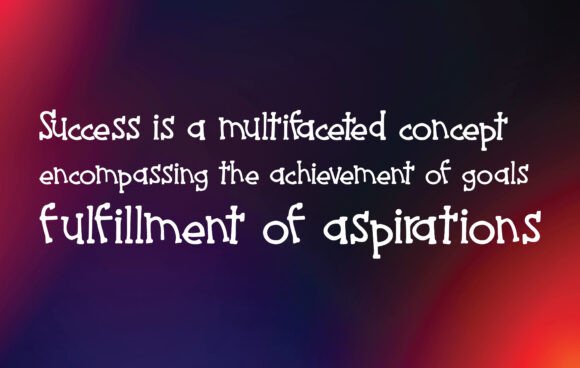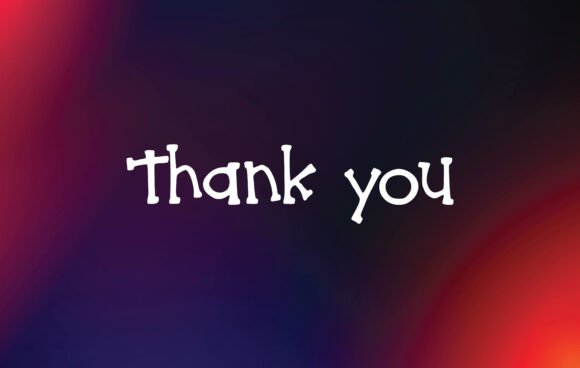
Introduction to Jackal Font
Jackal is a lovely and beautiful handwritten font.
Key Features of Jackal Font
Why Choose Jackal Font?
Jackal Font offers exceptional quality and versatility, making it a valuable addition to your design toolkit. Whether you’re creating for personal projects or commercial use, Jackal Font delivers professional results.